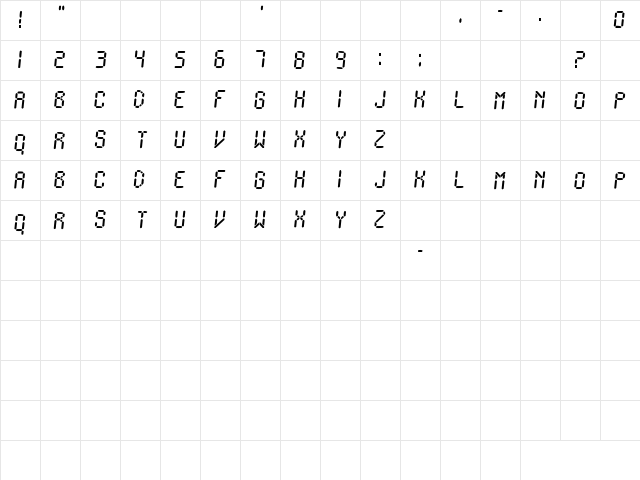
Design Context for Ionic Charge
Ionic Charge is a composed and adaptable typeface that performs quietly and consistently across a wide range of design contexts.